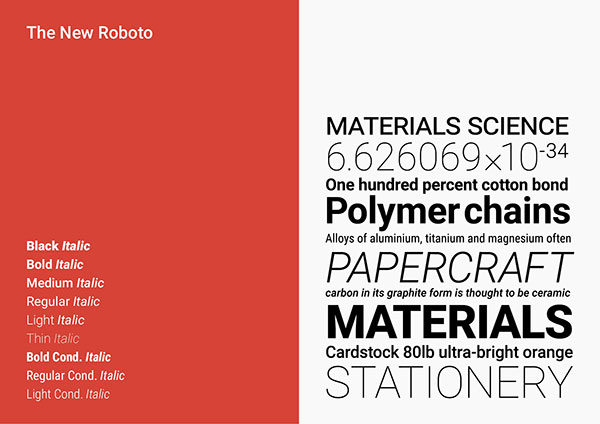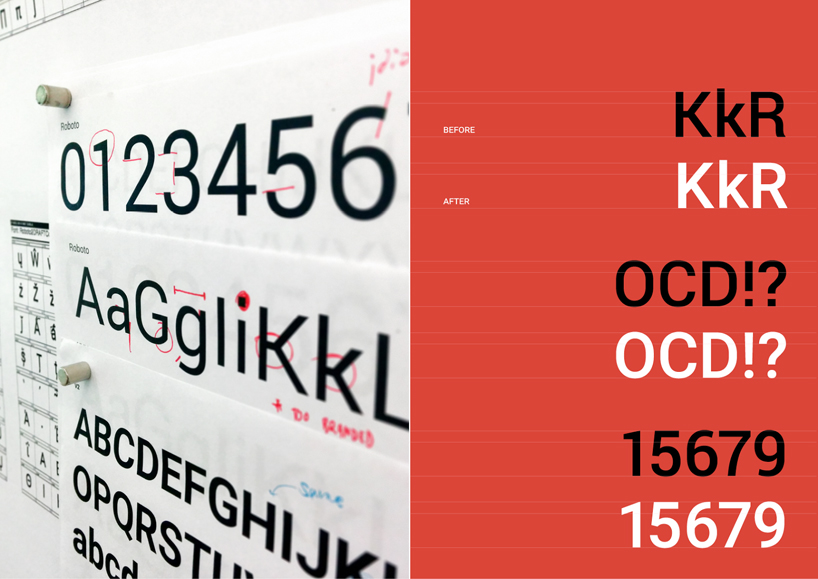
Why Google is the latter-day Darth Vader of fonts
All evidence in our digital era leads to the fact that Google tries to dominate, in its own way, the world of typography. First with Google fonts and now with the creation of custom typefaces in cooperation with Adobe, Google seems to solve all of our problems regarding typography, yet how much effort does it put to solve its own issues? Here we present you four essential facts worth noticing about the notorious relationship between typography and Google. Each one of them is interesting and praiseworthy.
#1. What rebooting Roboto really means
A couple of months ago, the design community, and not only, was shocked by the presentation of Google’s new design guidelines, under the ambiguous name Material Design. By reading the following arguments we were not just impressed, but a little bit concerned as well: “...Design: is the art of considered creation. Our goal is to satisfy the diverse spectrum of human needs. As those needs evolve, so too must our designs, practices, and philosophies. We challenged ourselves to create a visual language for our users that synthesizes the classic principles of good design with the innovation and possibility of technology and science. This is Material Design.” So, it might be clear to us that Material Design is the new evolution of the digital era but what happens with the existing “material” such as the Roboto typeface? The old story is that Roboto typeface has its roots back in 2011 when it was born and raised in the Google house supervised by Christian Robertson. Now, in 2014, Google redesigned the typeface in order to serve even more effectively the magnificent world of Android. This new typeface claims a friendlier look and has been created to work more effectively on any kind of device and screen -from watches and cars to giant screens. The changes can be easily seen on letters such as R and K, while the square over the “i” and “j” is replaced with a dot. Despite that, Roboto’s design looks quite inconsistent.
Google’s attempt to differentiate Roboto from other classic ‘neutral’ typefaces has resulted an unattractive mix of open and closed shapes that seem as if they belong to different typefaces. The people at Google may have done an amazing job to test its performance with an exhaustive number of various media, but on the other hand it does not seem to appeal to designers as much as we would have expected based on its pompous claim in Material Design.
#2. The plan to dominate is not that well planned after all
With the global font Noto, Google+Adobe, these massive global giants decided to join forces in order to produce one common typeface in an attempt to rule all the existing typefaces. Google’s and Adobe’s new typeface covers all scripts and existing languages and it's in your Font Book in one click, as the download is for free usage for both print and web cases. Noto (its Google name) or Source Han (its Adobe name), call it as you wish, is considered to be one of the richest typefaces according to its variety of content. The interesting fact is that this typeface has different designs for the same letters to match better with the different languages. For example, the Latin in the Japanese and Chinese version is different from the Latin in the European version. Very thoughtful, thanks Google! However, there is always the other side of the coin. So, on one hand Google offers a variety that can function effectively both on European and Chinese language, but on the other hand the unity of the scripts is lost. At first sight, even an untrained eye can spot differences on letters “I” and “J” between Chinese and European, but can’t clearly understand why.
By looking closely, the differences become apparent in all Latin letters. Eventually, this difference is extended to Greek and Cyrillic as well. Why is that? We need urgently some enlightment from Google please! What was the rationale behind this decision? A typeface designer’s task must be –among other things– to find a way to design all the different languages that belong to the same type family in a unified manner rather than creating something different for each one of them. You can have a taste of these differences by looking at letters such as “a”, “b”, “g”, “m”, etc. The story becomes more interesting when you look at the font credits.
The Noto Sans version for European, Arabic, Hebrew, etc. was designed by Monotype, whilst the Japanese and Chinese by Adobe. Go figure! Both are experts on type design, both have done a tremendous job but why not stick with one design for Latin, especially since both versions have the same name Noto Sans? Finally, while Cyrillic on both versions has been rather well executed, Greek seems to lack the qualities of a successful contemporary design. Greek has always been a problem with non-native designers who –in most cases– resort to outdated sources for advice and inspiration. As a result, none of these designs make it in the Greek market and the ones which do is mostly not out of choice but rather out of necessity. In the near future we plan a Greek Type Design 101 post in our Details section, in order to solve this issue once and for all, so stay tuned!
#3. Font rendering is required. Not optional.
Chrome and Windows have always been a pain in the ass when it comes to typefaces and we believe that all designers would agree on that. A bug has existed since the beginning of its history that has been recently corrected thanks to DirectWrite, a flag which was installed in Google Chrome (more like an optional beta in version .35, but a permanent feature in version .37 and on), which makes the font rendering work much better or as good as Mozilla’s and Internet Explorer’s.
#4. Learning what kerning means is basic typography. Yes. It. Is.
There is something we are glad to notice, not in a malevolent way but because we’ve spent a lot of time resolving similar problems. So, when it comes to a giant such as Google it feels only natural to ask: “Where the hell is the proper kerning dear Google?” There is a problem with kerning in Google Chrome, and this problem is obvious on typefaces that do not include a code in their css. Even the Arial typeface, the main typeface for the Google results, appears problematic and may our screenshots be our witness. Try to search for Youtube on Google Chrome and if you have a sharp eye for detail, you’ll notice the problem in the letter pair “Yo”.
Let’s make one thing straight here, of course we love Google’s humorous approach to kerning. When you search for “kerning” on the Google search engine, the spacing between each letter of the word “kerning” is increased by 1 pixel in all your search results (you should try it! It’s fun!), but this seems to be for now its only concern regarding kerning on Chrome.